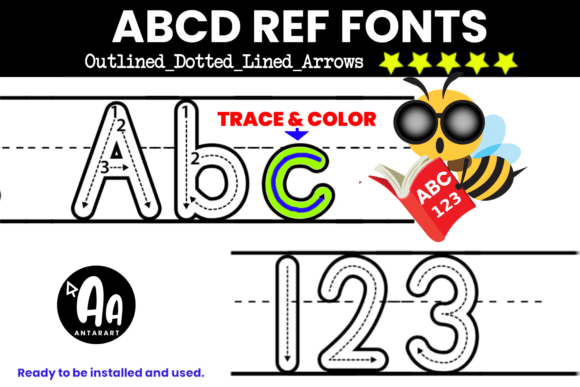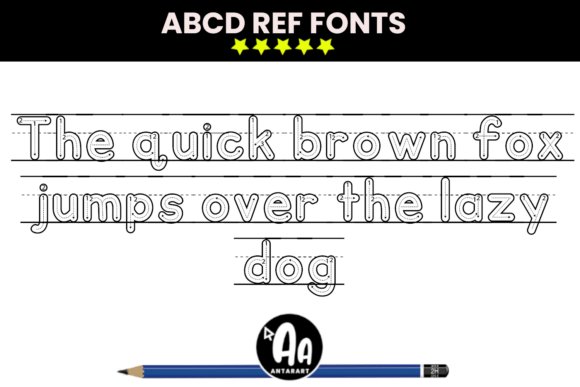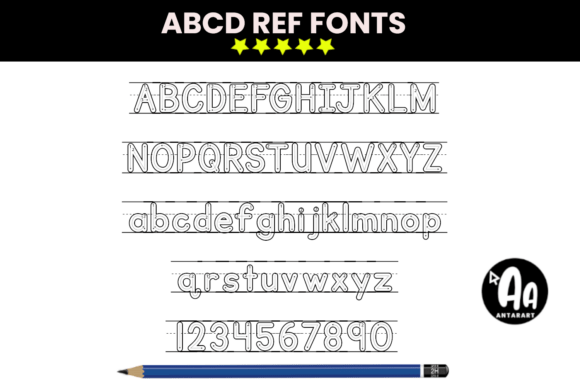
Abcd Ref Outlined Dotted Arrows Lined Font
This installable font helps with Print Alphabet letter recognition (Lowercase and Uppercase letters formation)
Inspired by the D’Nealian handwriting method, and helps you to create hundreds of worksheets. Installable, easy, and ready to use in any software.
It is a great learning resource for those who want to learn or teach the print alphabet enjoyably and interactively.
Both uppercase and lowercase letters, as well as numbers 0–9, are included in each style.
A must-have tool for creating your printable worksheets!